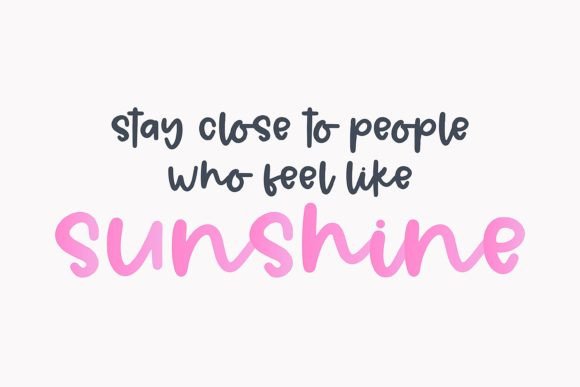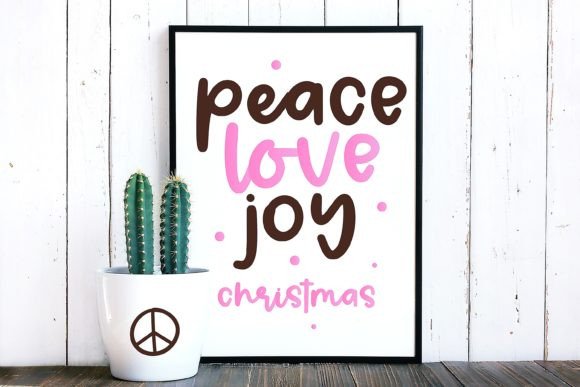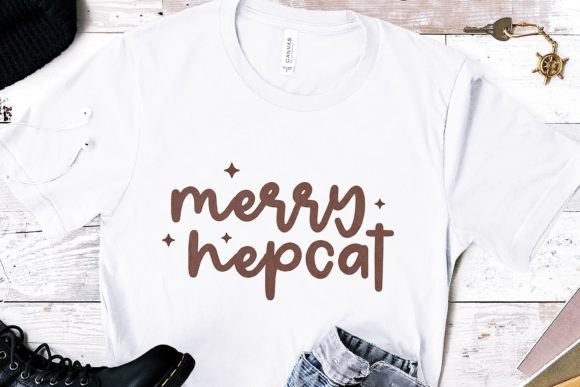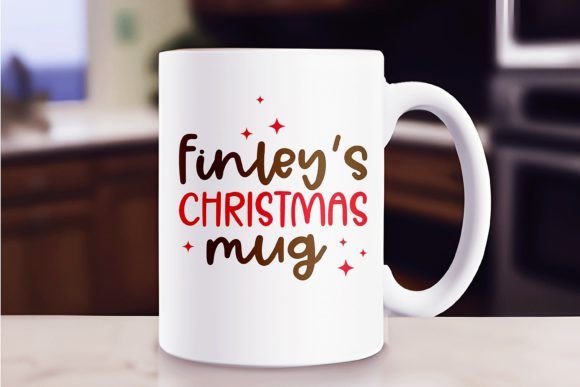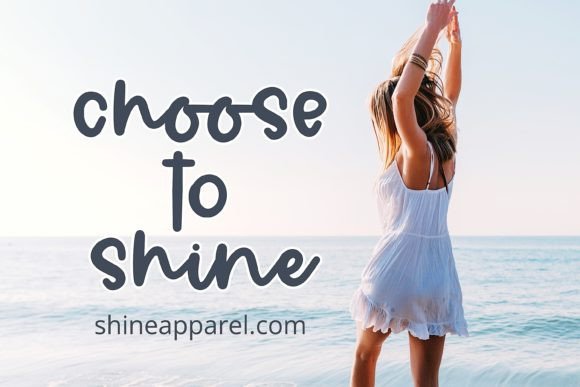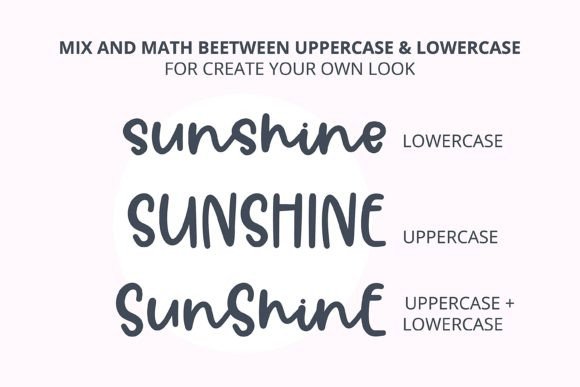
Introduction to Cupid Cheer Font
Cupid Cheer is a cool, friendly, and informal handwritten font that can be used for all chalkboard quotes or teaching material.
Its authentic look and feel will add a personal and realistic touch to your designs .
Key Features of Cupid Cheer Font